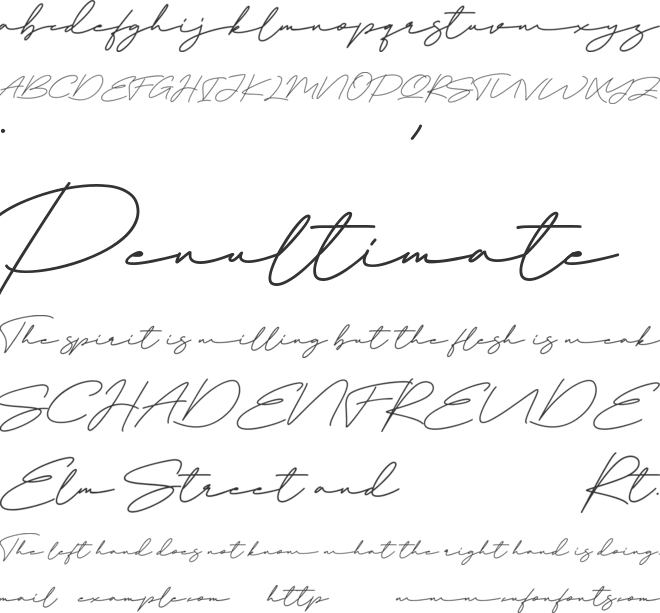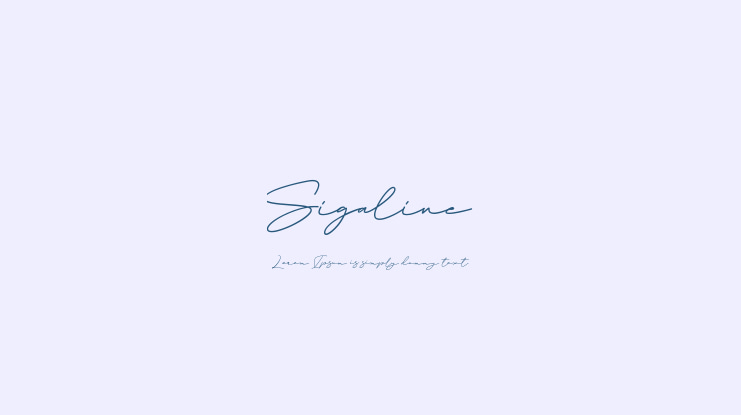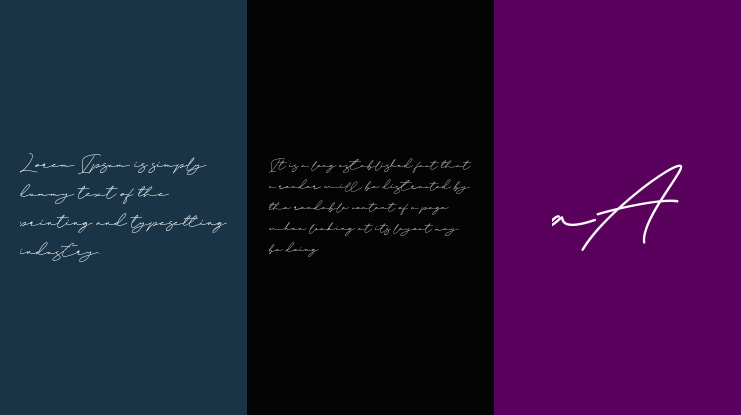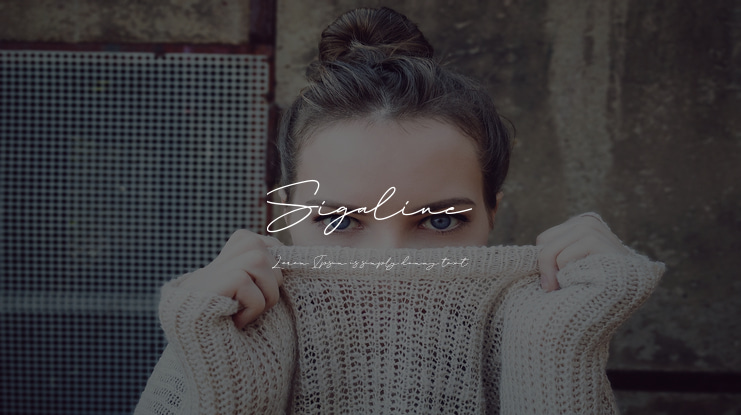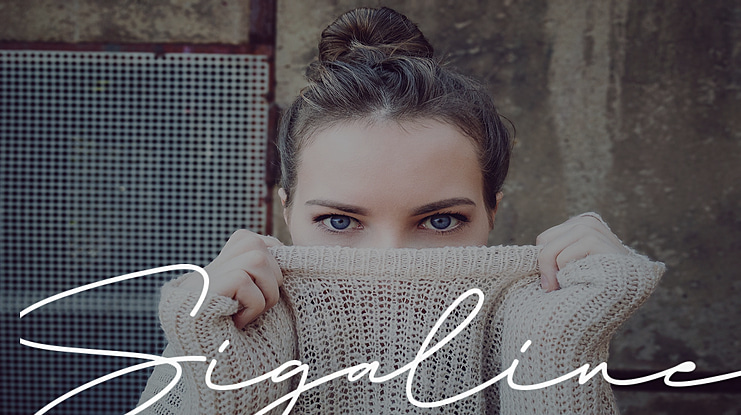
Sigaline Font
Signaline Handwritten Font is a thin lettered and graceful script font. Fall for its ravishing style and use it to create gorgeous wedding invitations, beautiful stationary art, eye-catching social media posts, and much more!
– Uppercase, Lowercase, Numeral & Punctuation
– Alternate Letters, Ligature & Swash/Tail